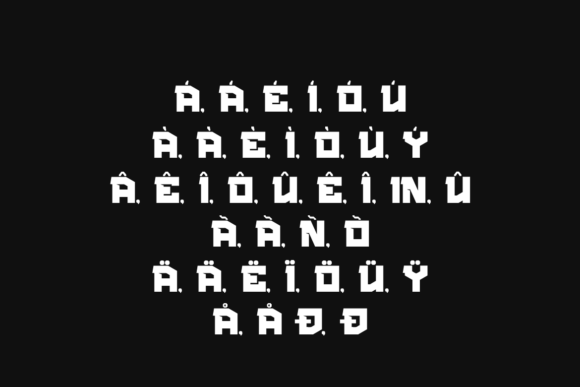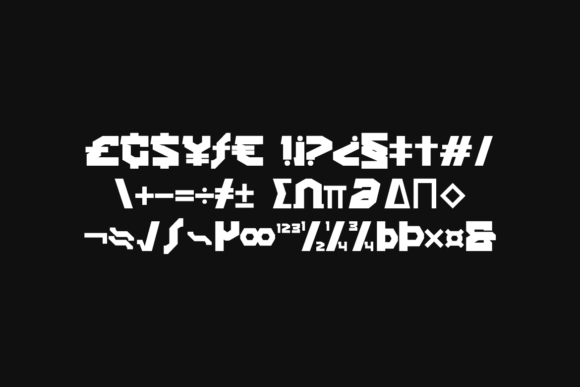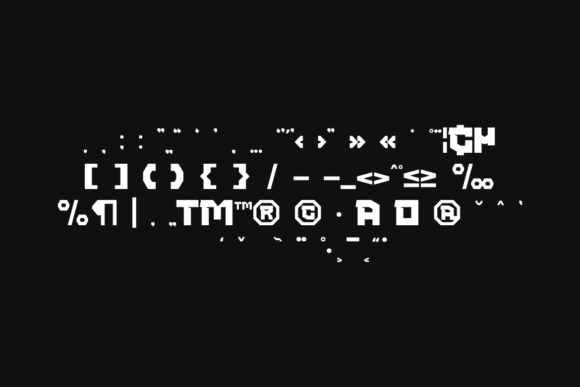
Introduction to Esport Woglen Font
As you sit in front of your computer screen, staring at the blank canvas of your latest creative project, the right font can be the spark that sets your design ablaze. For many designers, finding the perfect font can be a tedious process, but what if we told you that the search is over? Enter Esport Woglen Font, a high-impact display font that’s about to revolutionize your design workflow.
With its sharp angles, geometric cuts, and commanding presence, Esport Woglen Font is the ultimate design resource for anyone looking to create high-energy designs that demand attention. Whether you’re designing for competitive gaming arenas, athletic campaigns, or streetwear labels, this font is sure to elevate your creative project to the next level. Plus, with its transparent background and high-quality design, you can easily use it on any platform – digital or physical.
What sets Esport Woglen Font apart is its versatility and consistency. Available for free download, this font includes uppercase, lowercase, and numeric sets, making it an invaluable resource for designers of all levels. So why settle for a generic font when you can have a high-quality design that truly makes a statement? Try Esport Woglen Font today and take your design to the next level!
Key Features of Esport Woglen Font
- High-quality, professional font perfect for creative projects, offering a unique and modern design aesthetic.
- Supports a transparent background, allowing for seamless integration into various design elements and backgrounds.
- Designed to be highly legible, with a clear and crisp font style suitable for use in various contexts, from digital displays to print materials.
- Esport Woglen Font is a high-resolution design, suitable for use in high-quality print materials and digital displays, with a resolution of 300 DPI or higher.
- Unique characteristics include a bold and modern design, making it an excellent choice for designers seeking a distinctive look for their creative projects.
Honest Review: Esport Woglen Font
I recently stumbled upon the Esport Woglen Font, and I must say it’s been a game-changer for my creative project. The font is sleek, modern, and perfect for any sports-related design. I was impressed by the high-quality design and the fact that it’s a free download. What more could a designer ask for?
Here are some things that work well for this font: ✨ The Esport Woglen Font is incredibly versatile and can be used for a variety of creative projects. It’s perfect for designing sports-themed logos, posters, and even apparel. The transparent background option makes it easy to use in conjunction with other design elements. I also appreciate the fact that it’s a free download, making it accessible to designers of all levels.
- Perfect for sports-themed designs
However, there are a few limitations to keep in mind: ⚠️ The font may not be suitable for all design projects, and the free version may not include all the features of the paid version. Additionally, the font may not be as customizable as some other design resources.
Overall, I’m thoroughly impressed with the Esport Woglen Font. It’s a great addition to any designer’s toolkit, and I highly recommend it for any creative project. With its high-quality design and free download option, it’s a design resource that’s hard to beat.
Even in presentation software like PowerPoint or Word, the Esport Woglen Font can add a touch of sophistication. Simply select the font and use it for headings or titles to make your presentation stand out.
To get the most out of the Esport Woglen Font, use it in combination with a transparent background to create a sleek and modern design. Experiment with different font sizes and colors to find the perfect balance.
The Esport Woglen Font is perfect for sports-related designs, gaming websites, or any project that requires a bold and modern look. Use it for logos, headers, or even social media graphics to make your design stand out.